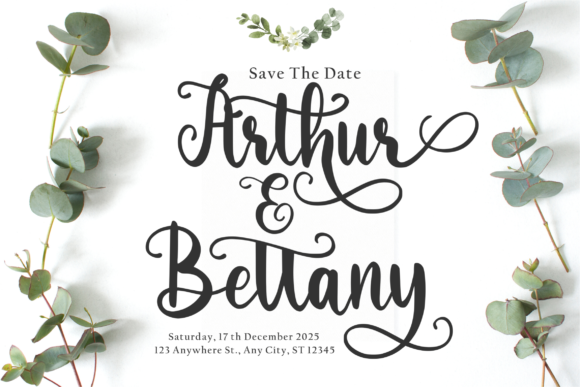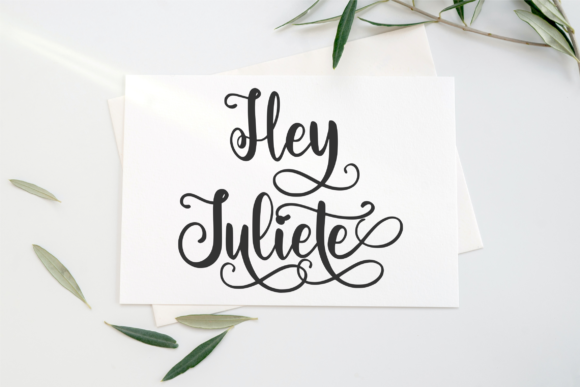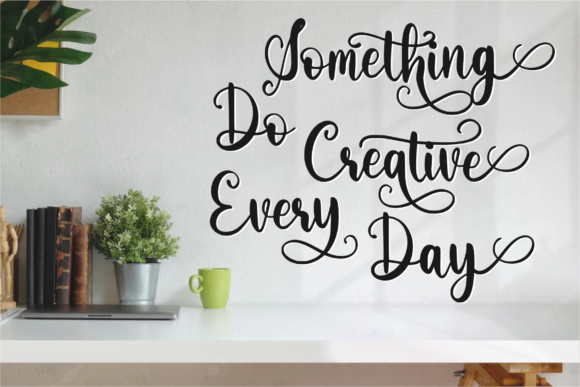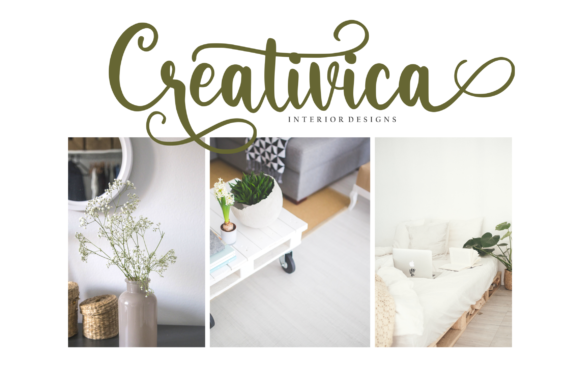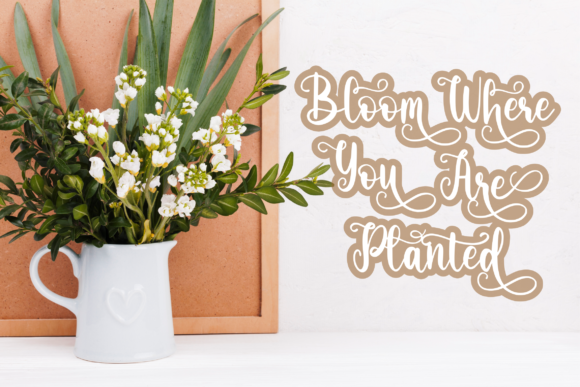
Introduction to Matilda Calrysta Font
Matilda Calrysta is a cute swash calligraphy font with smooth curves.
It has a wonderful dancing baseline and tons of character Use it for invitations, greeting cards, promotional materials, websites, and branding that needs an elegant and natural style.
Key Features of Matilda Calrysta Font
Why Choose Matilda Calrysta Font?